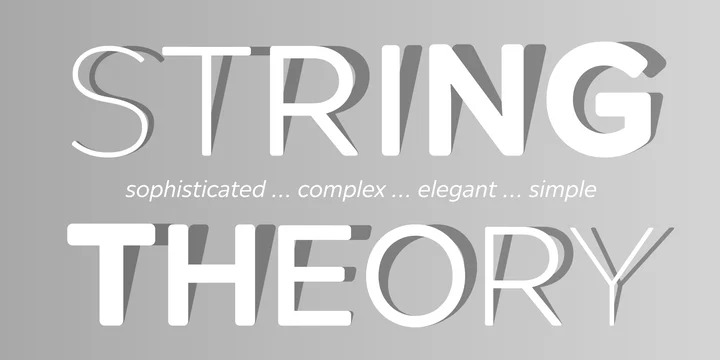
The fonts now cover most Latin languages, Greek and many Cyrillic languages – apparently around 275 in total. The letters have been redrawn and re-proportioned and the spacing recalculated to make for better reading at text sizes.